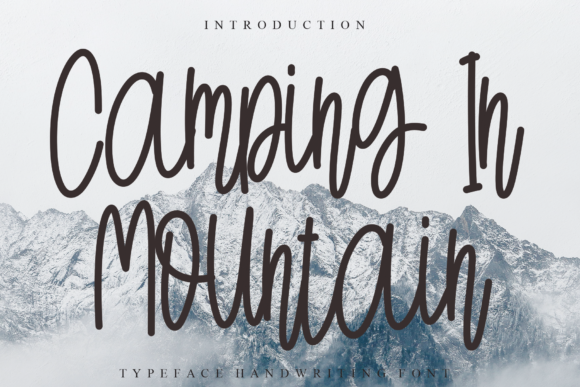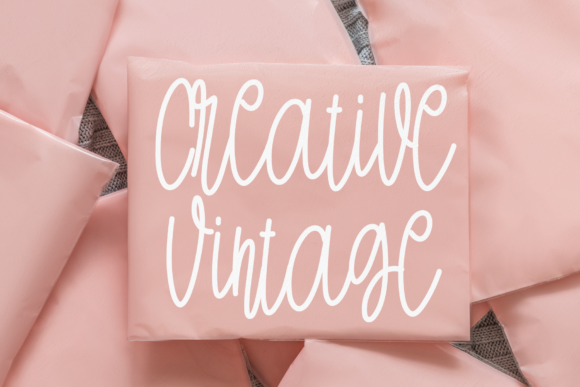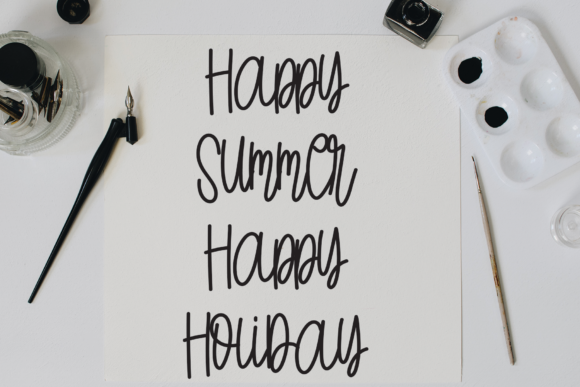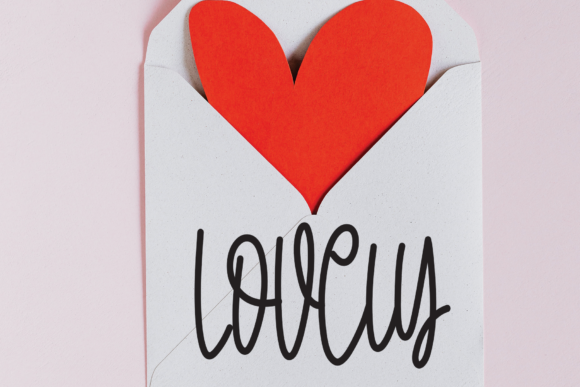
About Camping in Mountain Font
Camping in Mountain is a relaxed and casual handwritten font. It is the best choice for creating eye catching logos, branding and quotes. Every letter has a unique and beautiful touch, which will make your design come alive!